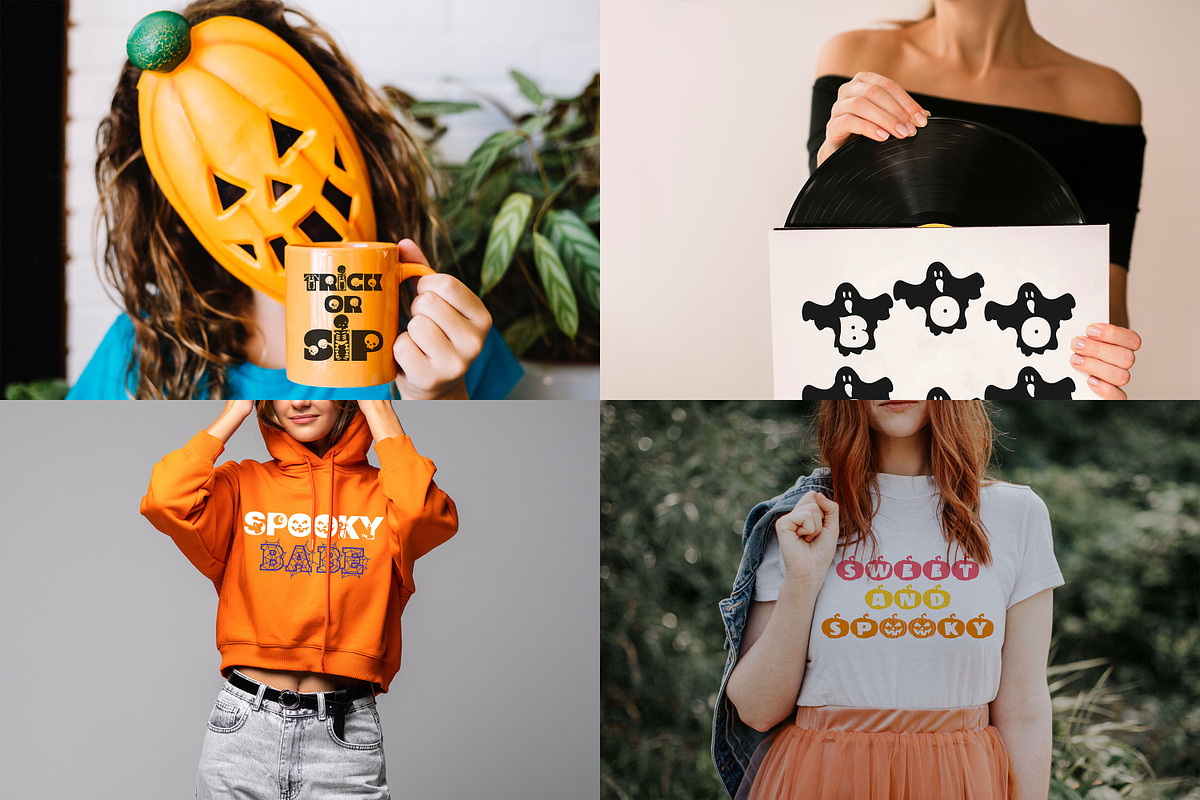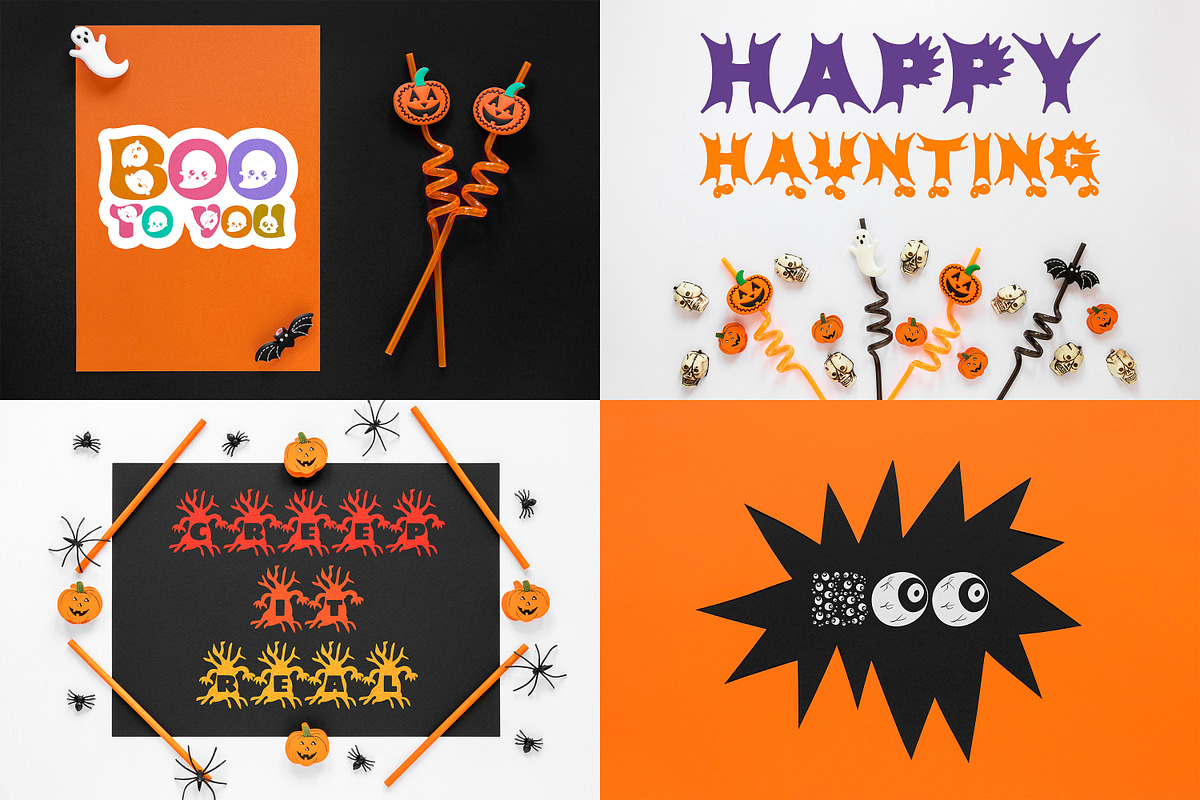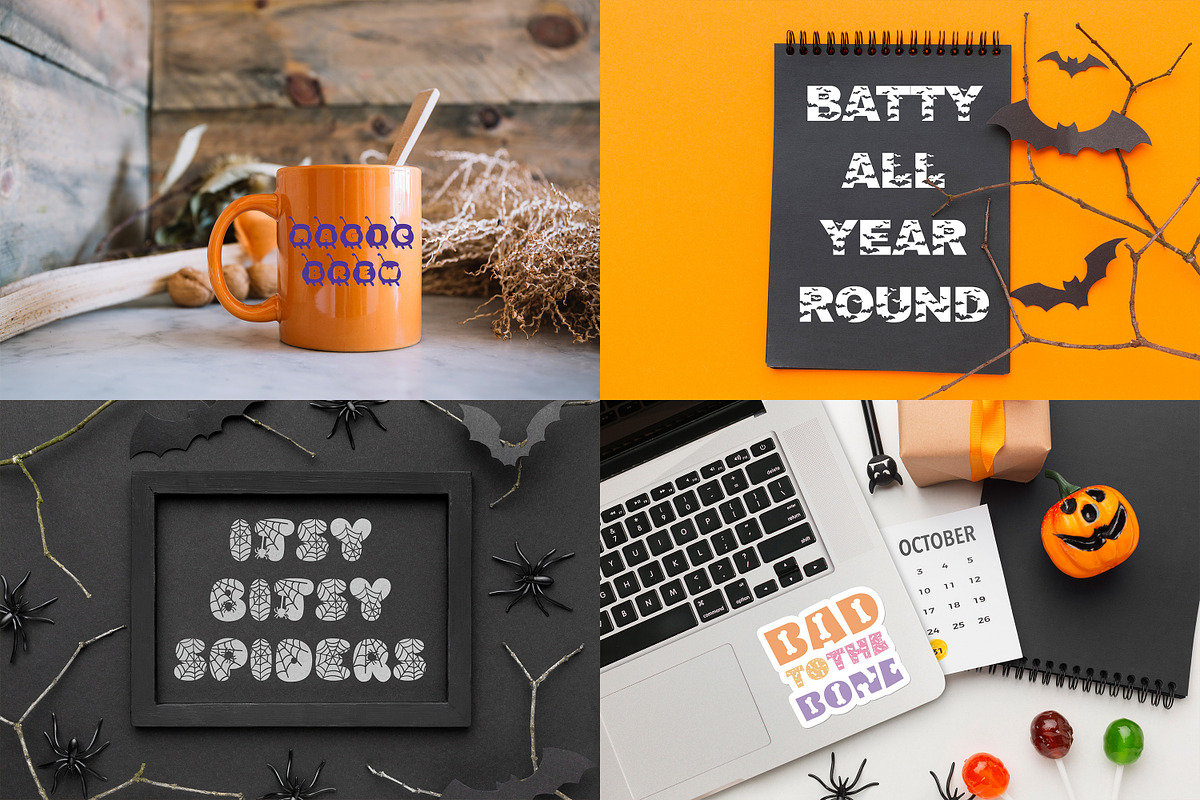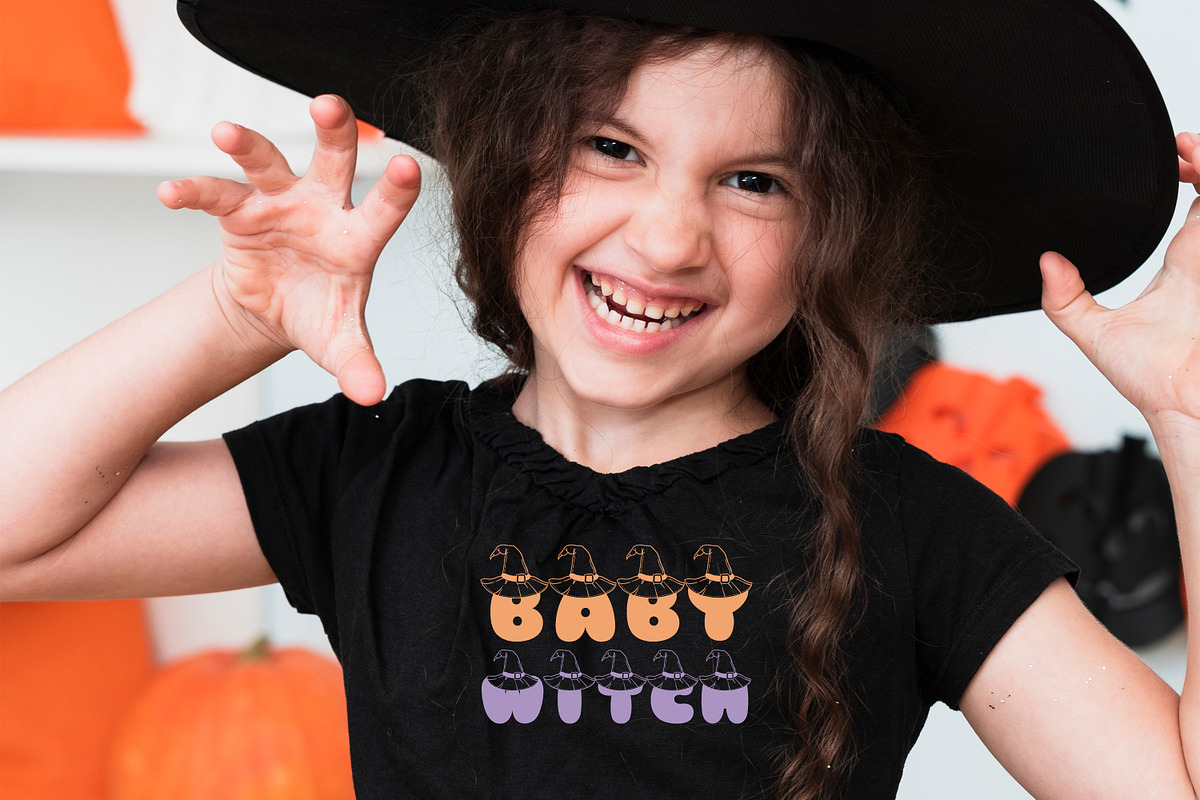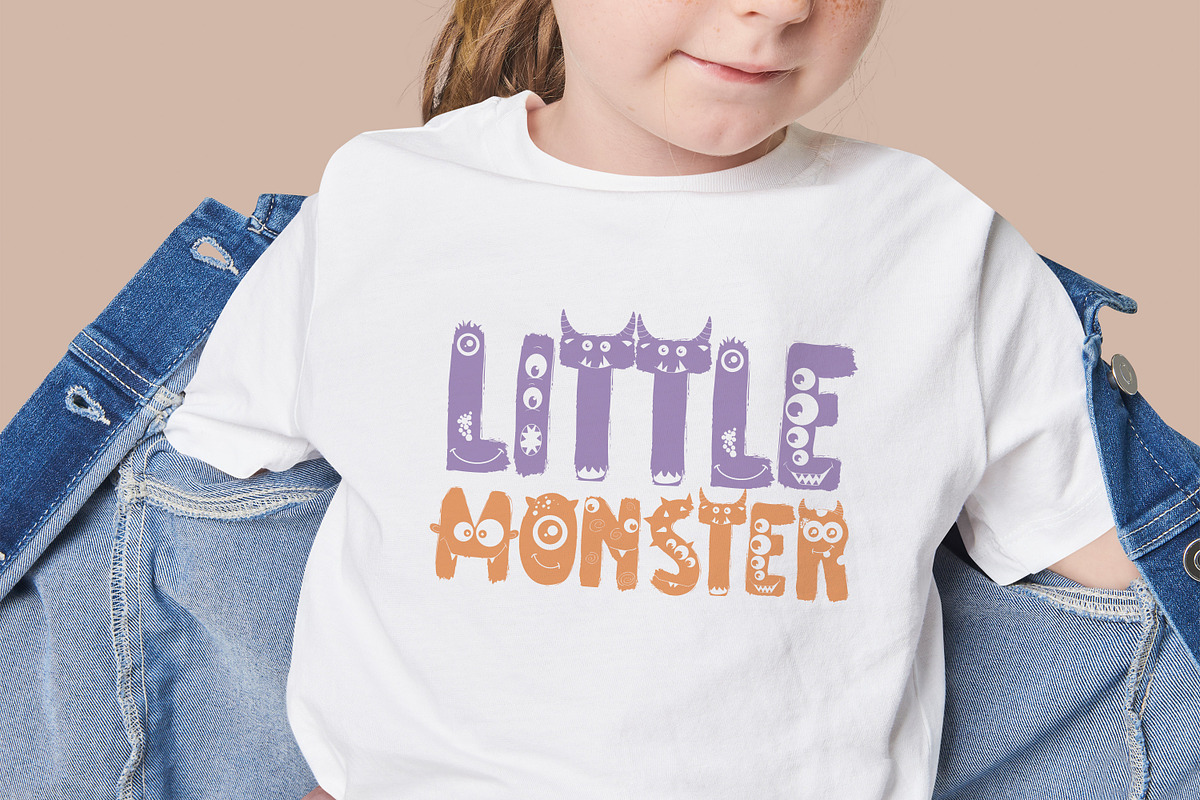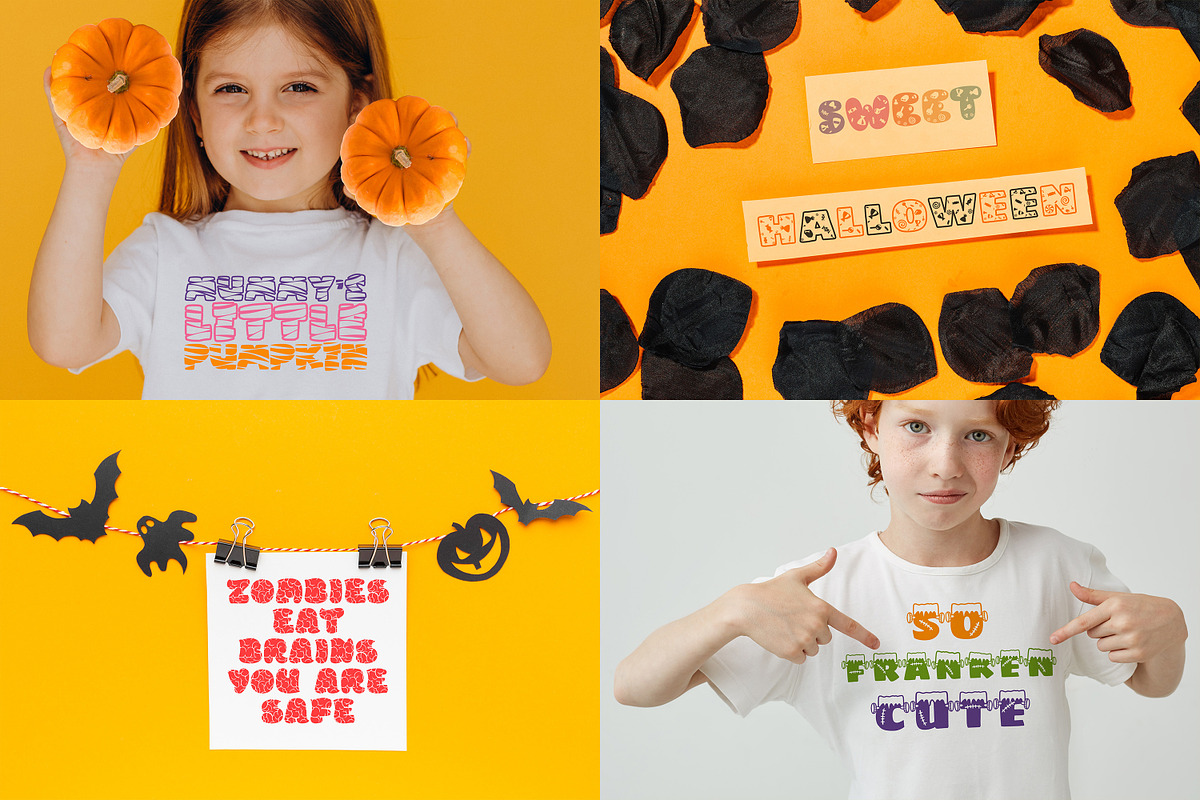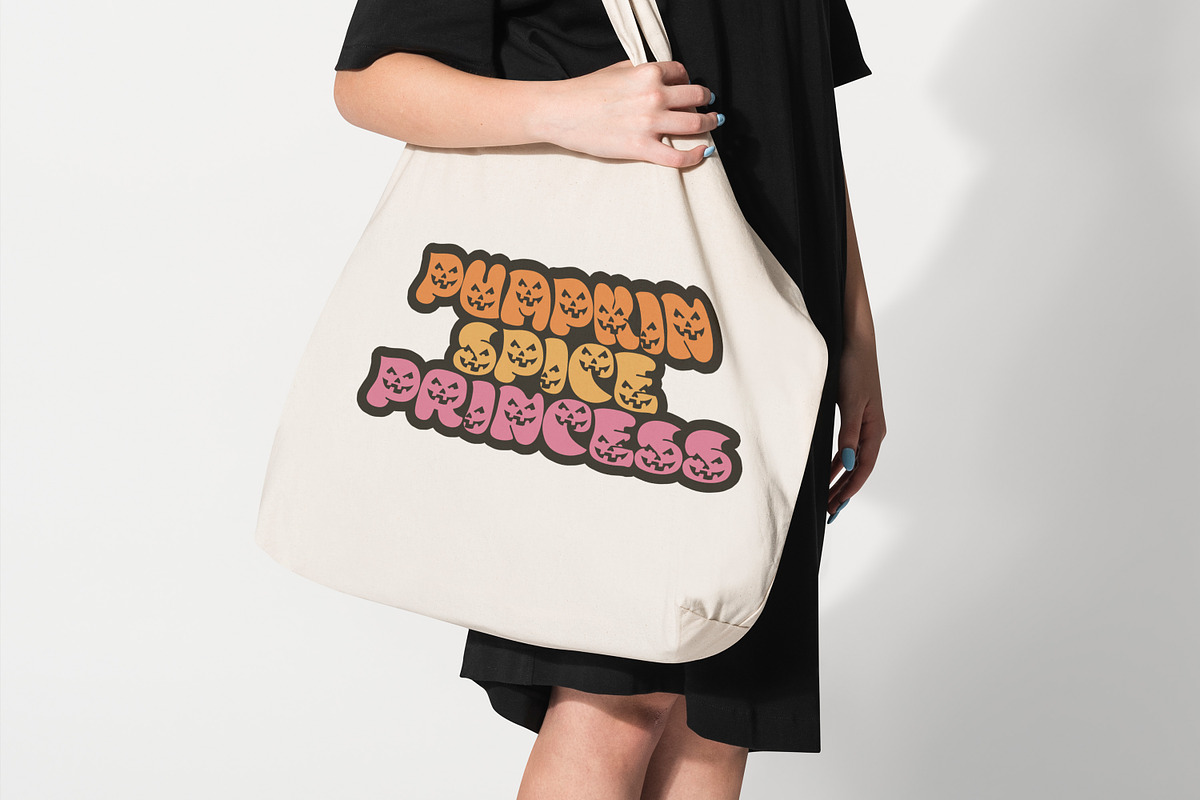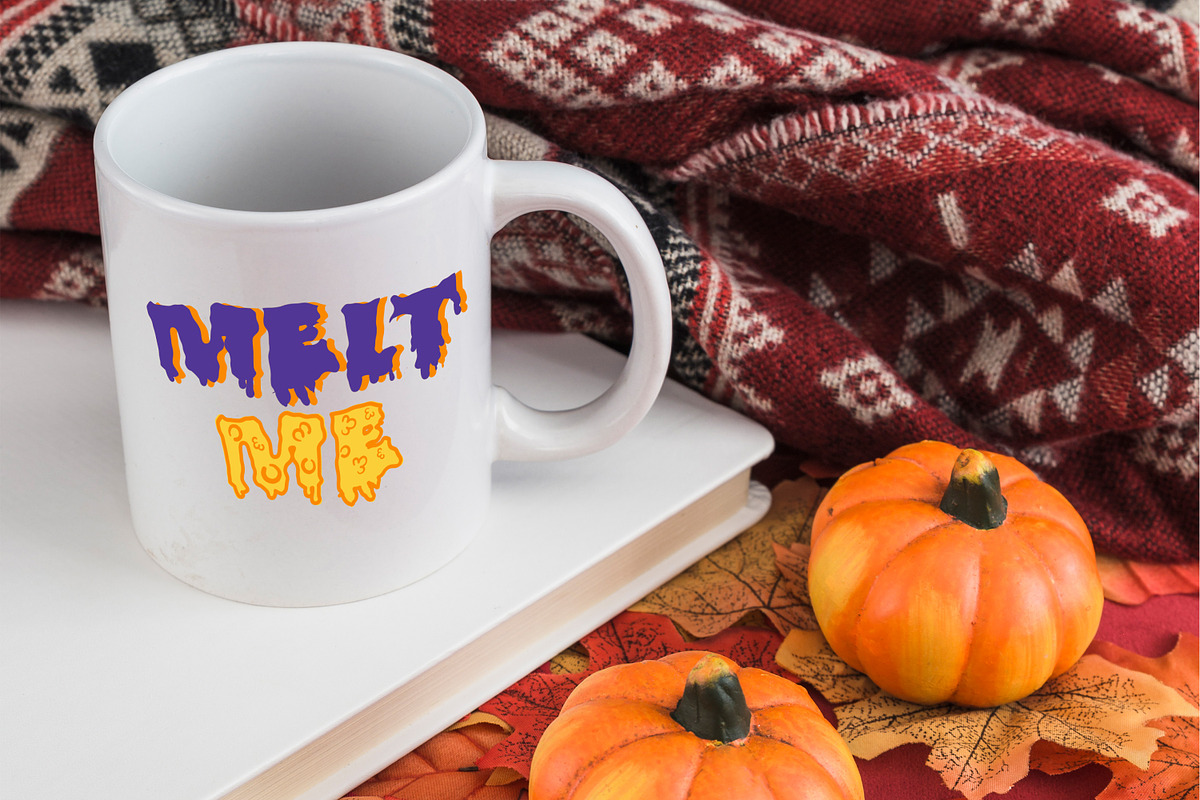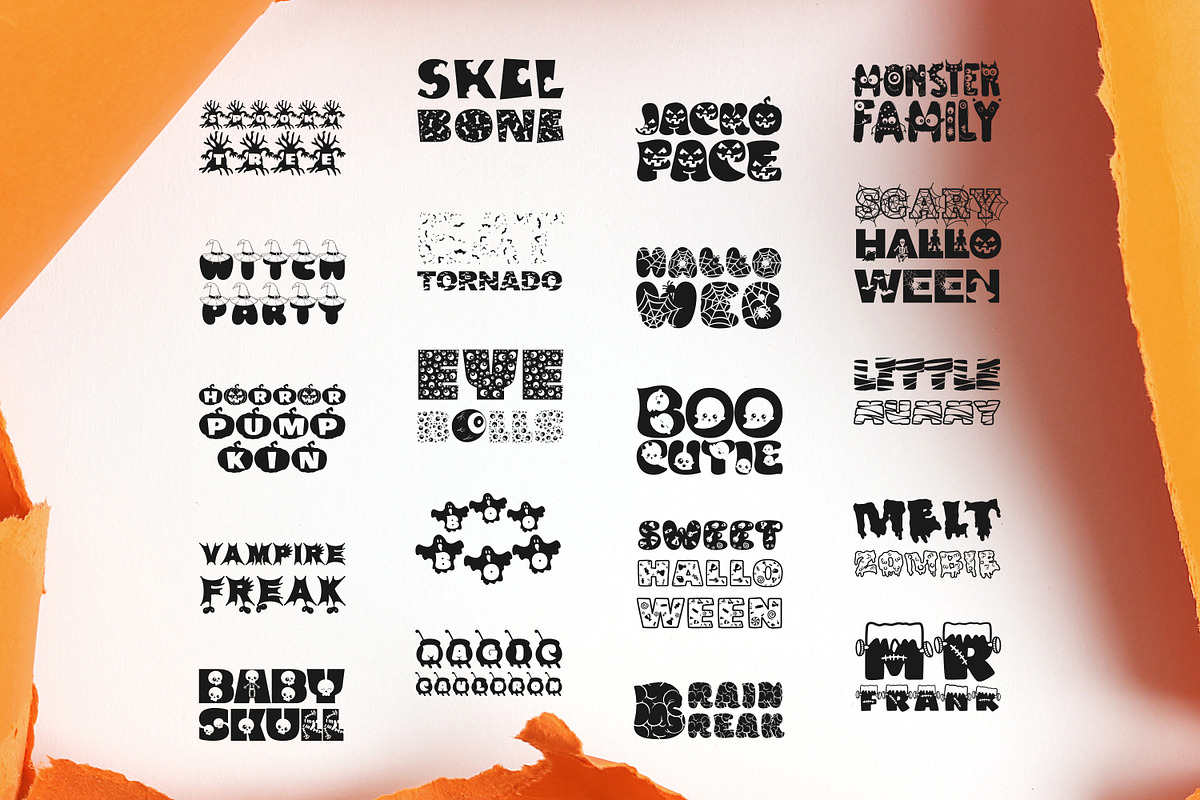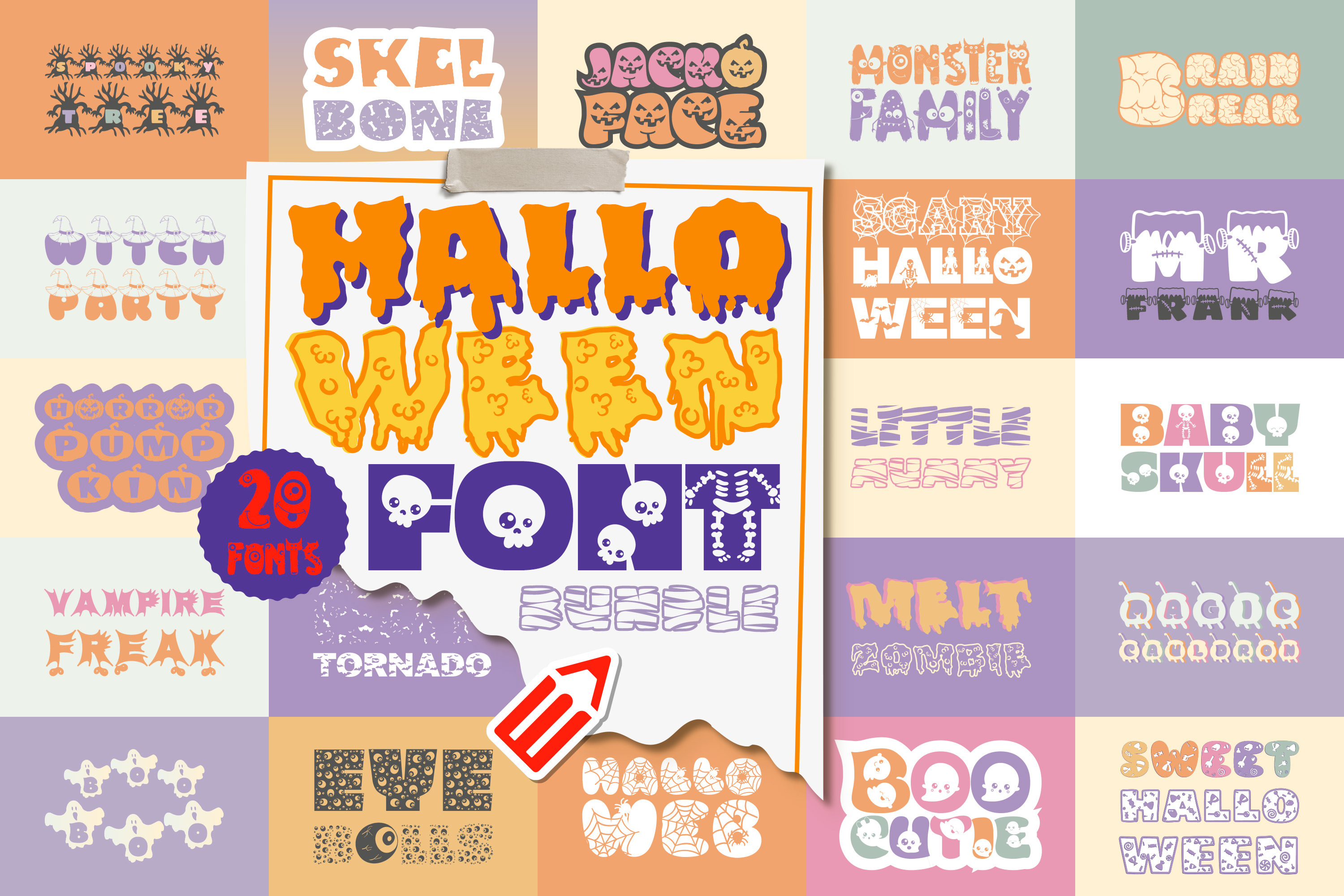
The Halloween Font Bundle
Dive into the enchanting world of fright and fantasy with the Halloween Font Bundle! Boasting 20 uniquely crafted fonts like "Scary Halloween Trio," "Bat Tornado Duo," and "Spooky Tree," this collection is a cauldron of creativity for any Halloween-themed project. Let your designs come alive with the playful eeriness of "Boo Boo," or get your spook on with "Horror Pumpkin." From the charmingly creepy "Witch Party" to the bone-chilling "Vampire Freak," this bundle offers an array of styles to match the spirit of the season. Whether conjuring invites, posters, or eerie merchandise, the Halloween Font Bundle guarantees a design brew that's wickedly delightful. Unleash your inner ghoul and add that perfect spooky touch to your creations – because every font tells a haunting tale!
Included in this pack: Scary Halloween Trio Bat Tornado Duo Boo Boo Brain Break Eye Balls Duo Hallo Web Horror Pumpkin Jacko Face Mr. Frank Skel Bone Duo Spooky Tree Witch Party Magic Cauldron Sweet Halloween Duo Vampire Freak Melt Zombie Duo Little Mummy Duo Monster Family Baby Skull Boo Cutie